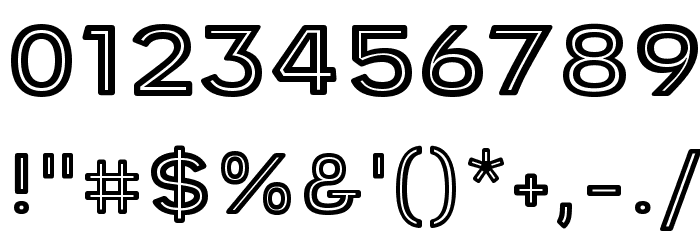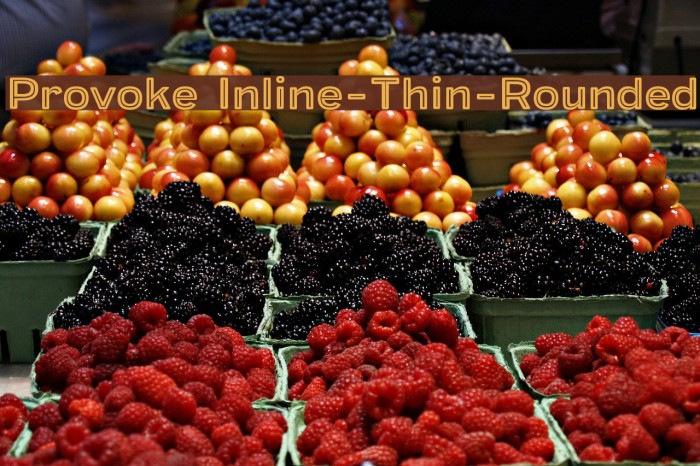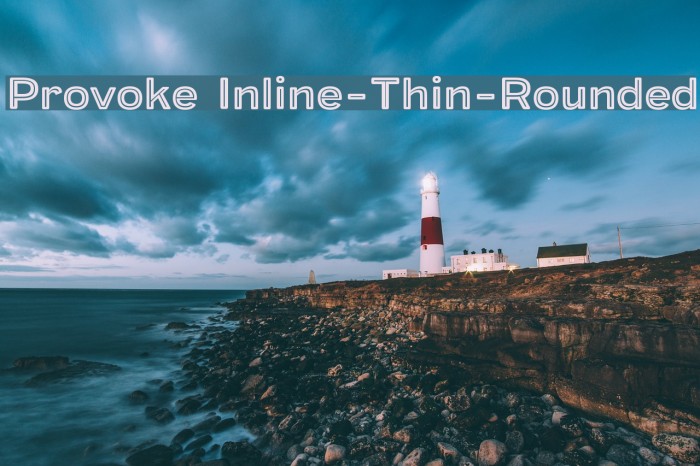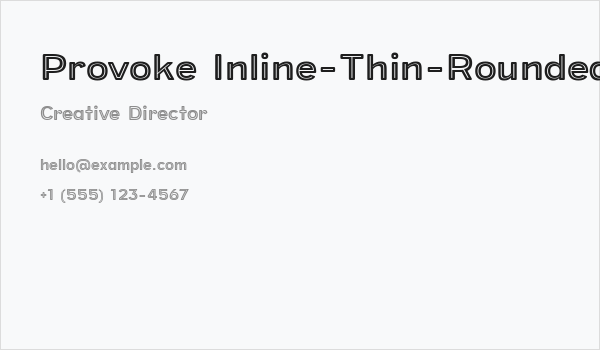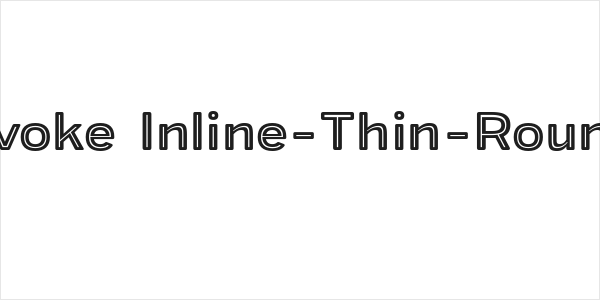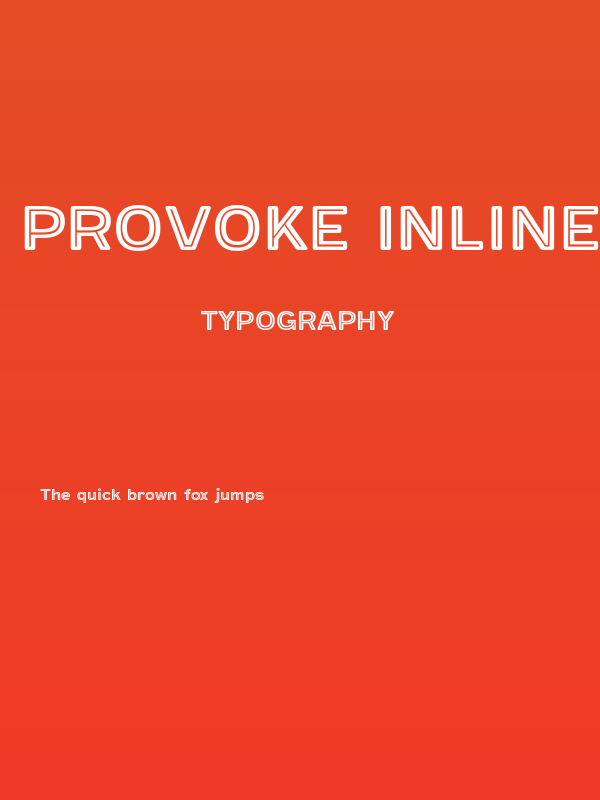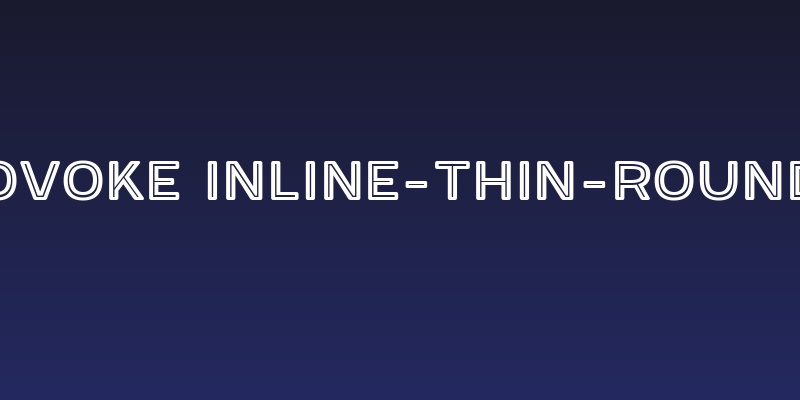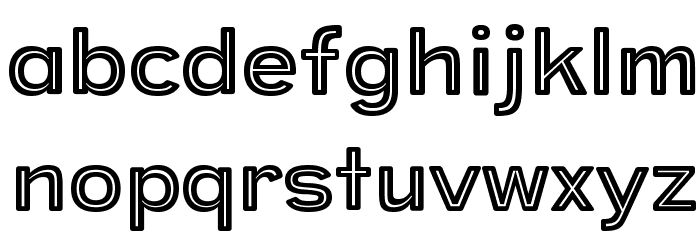
Provoke Inline-Thin-Rounded Font
Provoke Inline-Thin-Rounded Description
This font features a modern and sleek design with a thin, rounded inline style. The uppercase and lowercase letters are consistent in their geometric form, providing a clean and contemporary look. The numerals and special characters maintain the same aesthetic, ensuring uniformity across all glyphs. The rounded edges soften the overall appearance, making it approachable and friendly. The inline detail adds a unique touch, enhancing its visual interest without compromising readability. This font is versatile, suitable for both digital and print media, and can be used in various design contexts.
| Proposed Projects | Ideal for branding, advertising, web design, and editorial projects where a modern and approachable aesthetic is desired. |